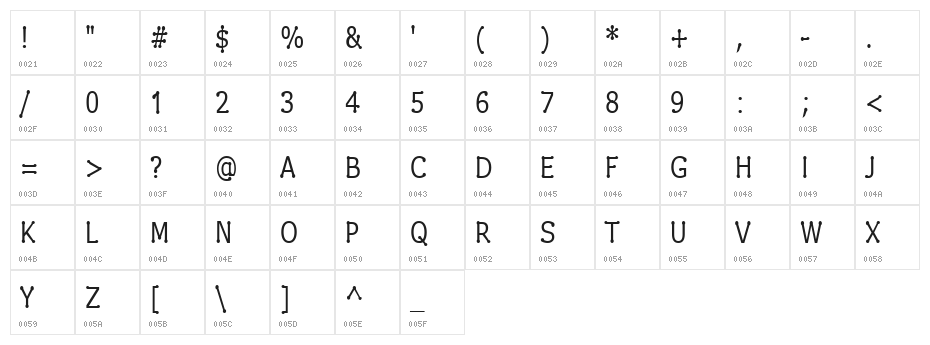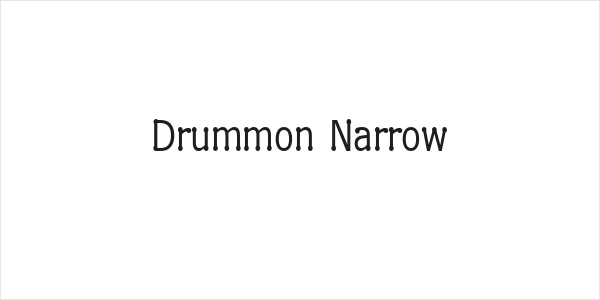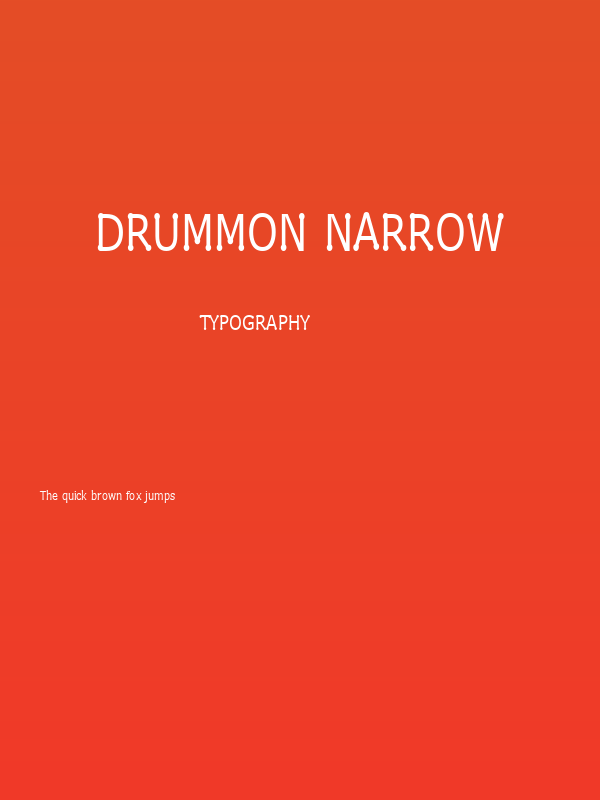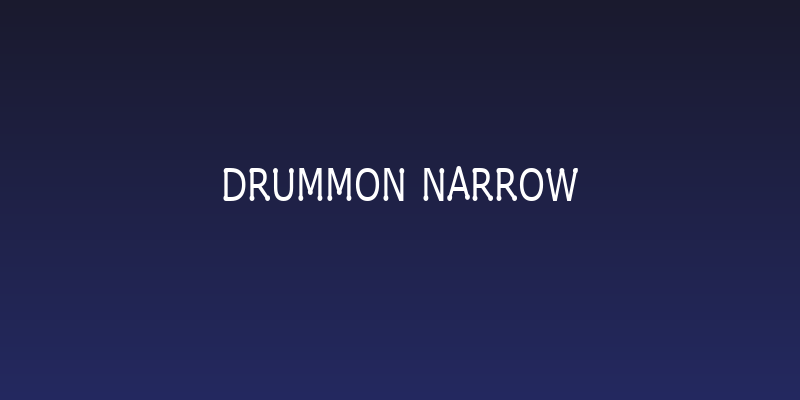
Drummon Narrow Font
Drummon Narrow Description
This font features a unique blend of modern and classic elements, characterized by its narrow and elongated letterforms. The rounded edges and consistent stroke width give it a friendly and approachable appearance. The uppercase letters are tall and slightly condensed, while the lowercase letters maintain a similar width, ensuring readability. The numerals are clear and distinct, making them suitable for various applications. Special characters are well-integrated, maintaining the overall aesthetic of the font. Its clean and simple design makes it versatile for both digital and print media.